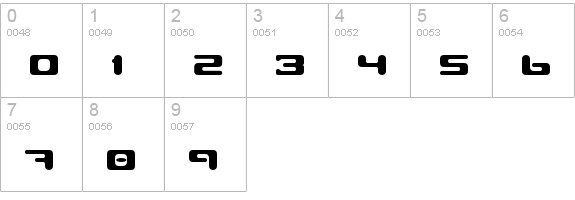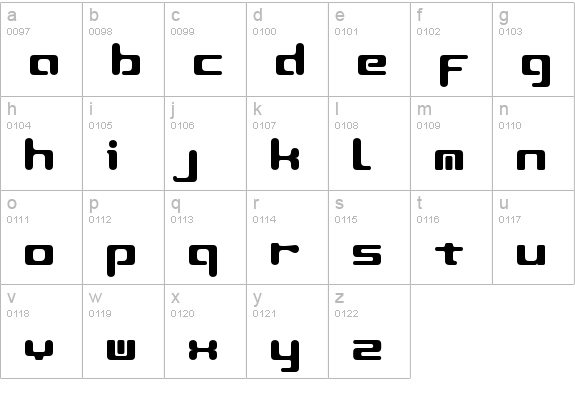
LeftOvers II 2 Font Details
LeftOvers II 2 is a remarkable font that combines elegance with a touch of quirkiness. This versatile typeface is perfect for adding a unique and creative touch to your projects. With its clean lines and playful curves, LeftOvers II 2 exudes a sense of modernity and sophistication. What sets LeftOvers II 2 apart from other fonts is its incredible attention to detail. Each letter has been meticulously designed to ensure a seamless and harmonious flow. From the graceful curves of the lowercase letters to the bold and striking uppercase characters, every element of this font has been carefully crafted. One of the most appealing aspects of LeftOvers II 2 is that it is freely available to download at FontsMarket.com. This means that you can easily access this font and incorporate it into your designs without any hassle. Whether you are a professional designer looking to add a unique touch to your client's projects or an individual looking to create eye-catching personal designs, LeftOvers II 2 is the perfect choice. With its wide range of weights and styles, LeftOvers II 2 offers endless possibilities for your creative endeavors. Whether you are designing logos, branding materials, invitations, or posters, this font will elevate your work to new heights. Its versatility allows it to seamlessly adapt to different design styles, making it a truly versatile addition to your font collection. If you are looking for a font that combines elegance, quirkiness, and freedom, look no further than LeftOvers II 2. Download it for free at FontsMarket.com and let your creativity soar.